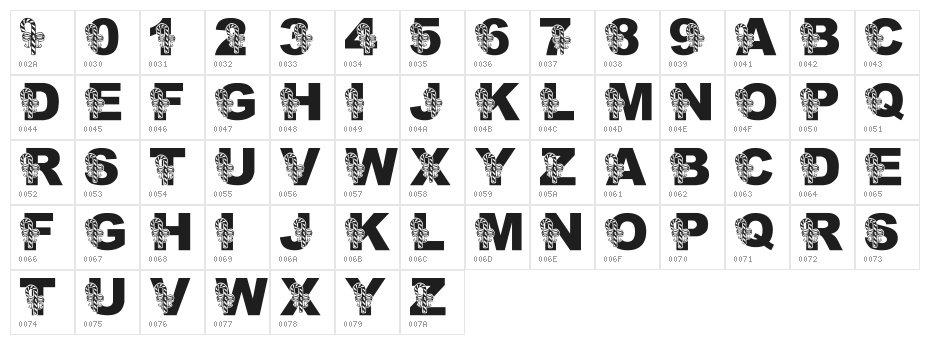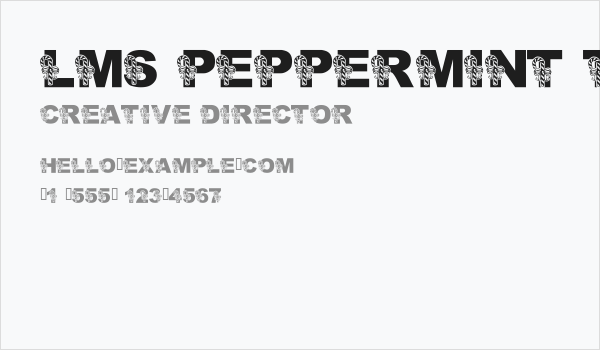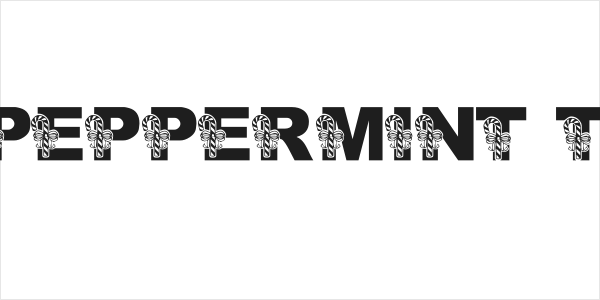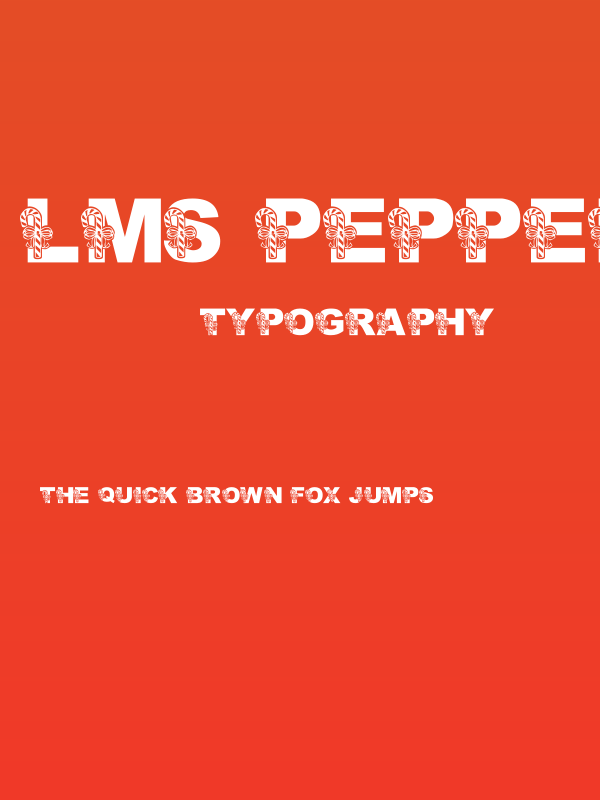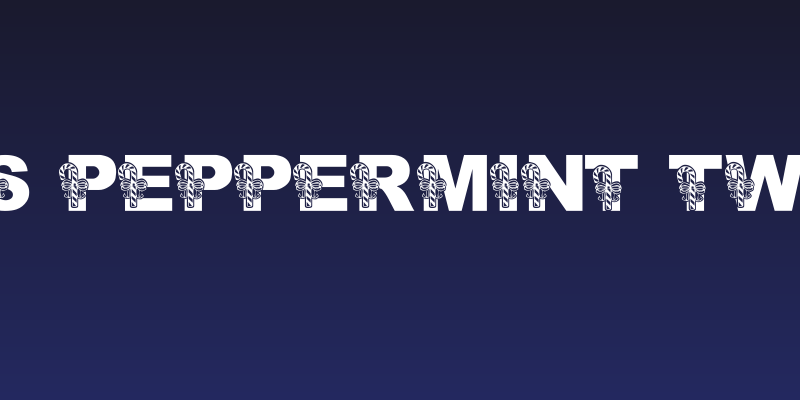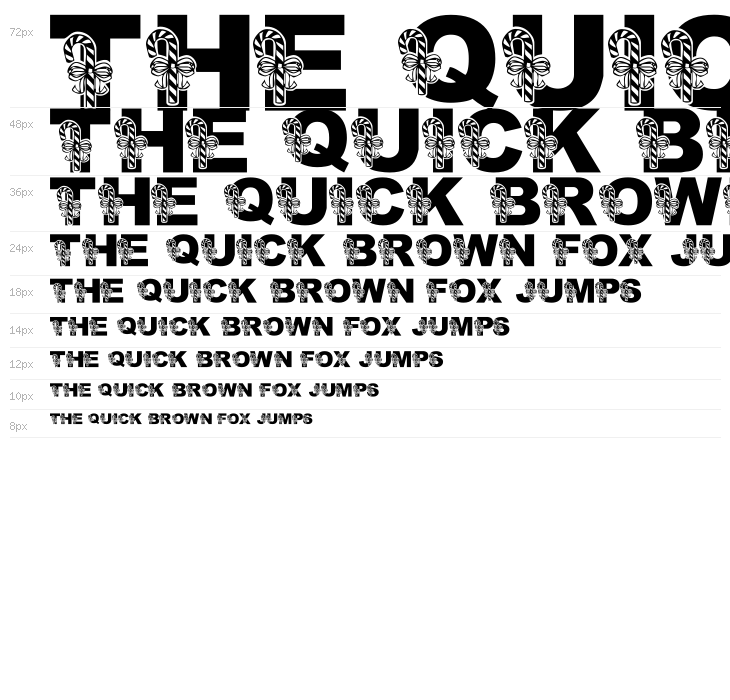
LMS Peppermint Twist Font
LMS Peppermint Twist Description
This font features a playful and festive design, incorporating candy cane and bow elements within each character. The bold, uppercase letters are decorated with intricate patterns that evoke a holiday spirit, making it ideal for seasonal projects. The numbers and special characters maintain the same decorative style, ensuring consistency across all text elements. The font's unique design captures attention and adds a whimsical touch to any project.
| Use Case | Headlines, Logos, Decorative Text |
| Proposed Projects | Ideal for holiday cards, festive banners, seasonal advertisements, and playful event invitations. |